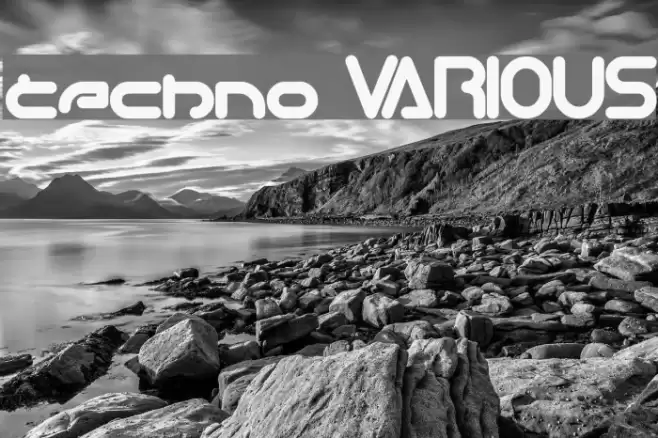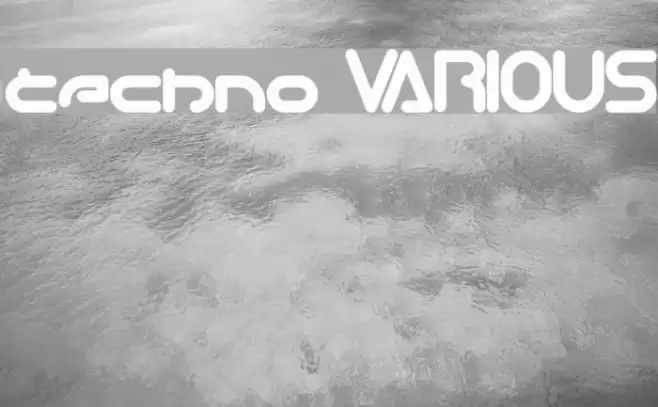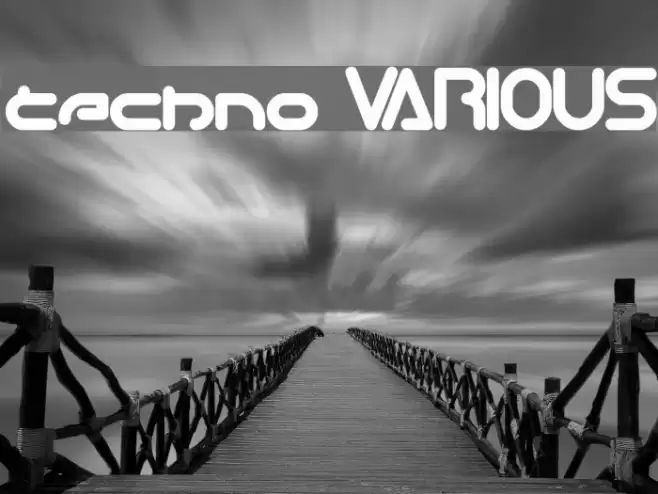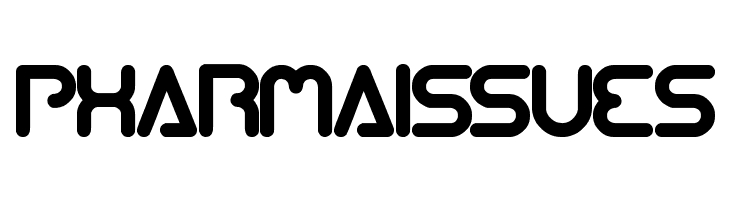
techno VARIOUS Font
techno VARIOUS Description
This font features a futuristic and geometric design, characterized by its rounded edges and bold, uniform strokes. The letters are constructed with a consistent thickness, giving it a cohesive and modern appearance. The uppercase and lowercase letters maintain a similar style, with some unique variations in the lowercase set. The numerals and special characters follow the same design principles, ensuring a harmonious look across all characters. This font's distinct style makes it suitable for projects that require a modern and tech-inspired aesthetic.
A futuristic, geometric font with rounded edges and bold strokes from Uncategorized fonts.
- Proposed Projects: Ideal for technology branding, sci-fi themed designs, video game interfaces, and modern advertising.